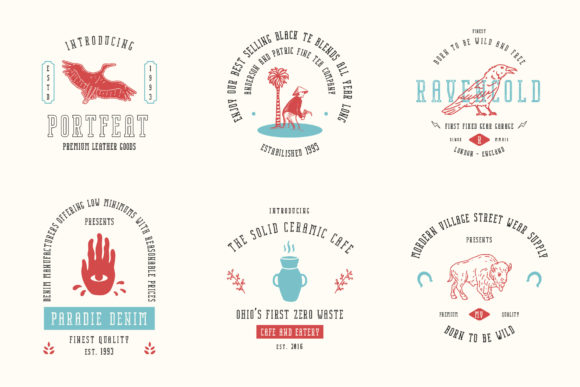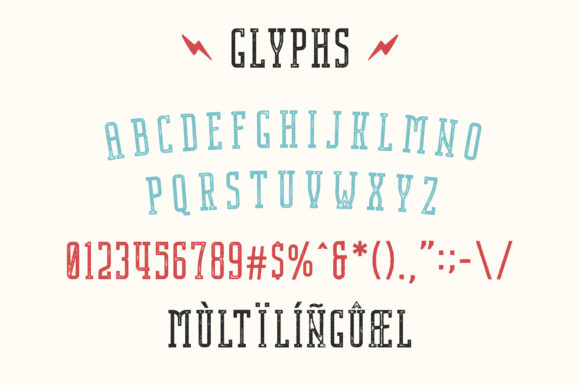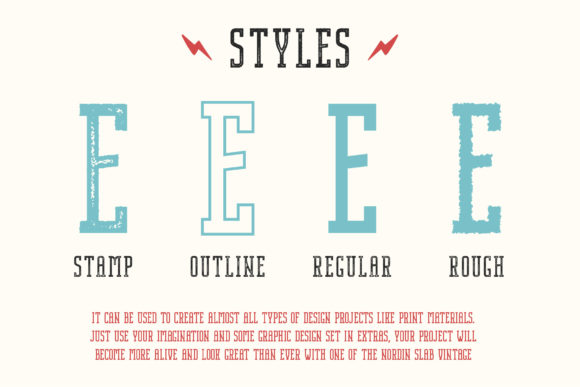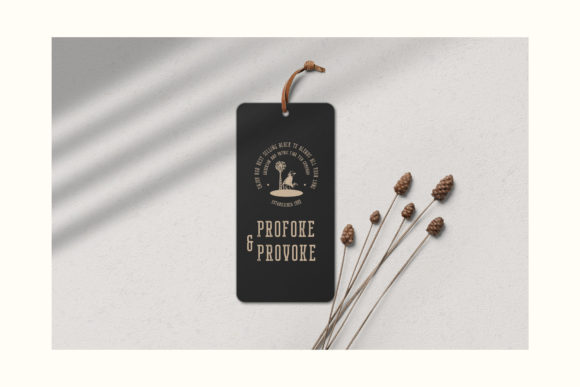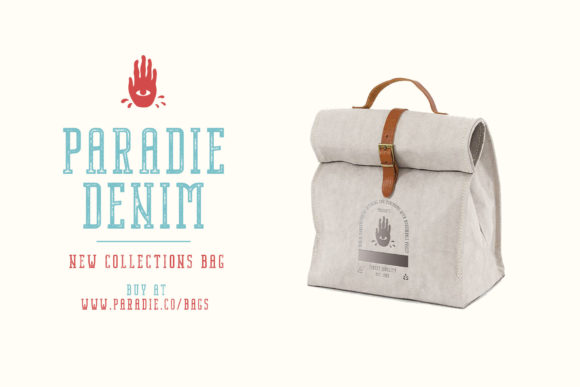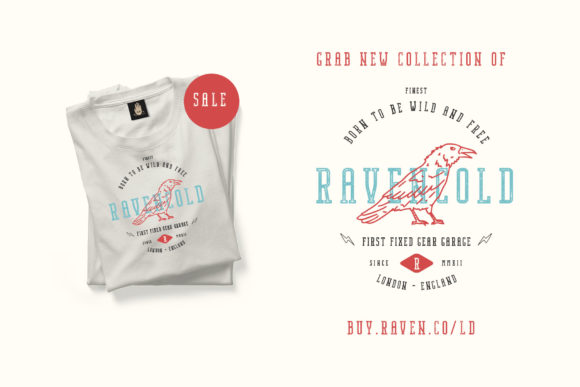
Introduction to Nordin Slab Font
Nordin Slab is a vintage styled display font.
It will bring each of your creations to life Its natural and unique style makes it incredibly fitting to a large pool of designs.
Key Features of Nordin Slab Font
Why Choose Nordin Slab Font?
Nordin Slab Font offers exceptional quality and versatility, making it a valuable addition to your design toolkit. Whether you’re creating for personal projects or commercial use, Nordin Slab Font delivers professional results.